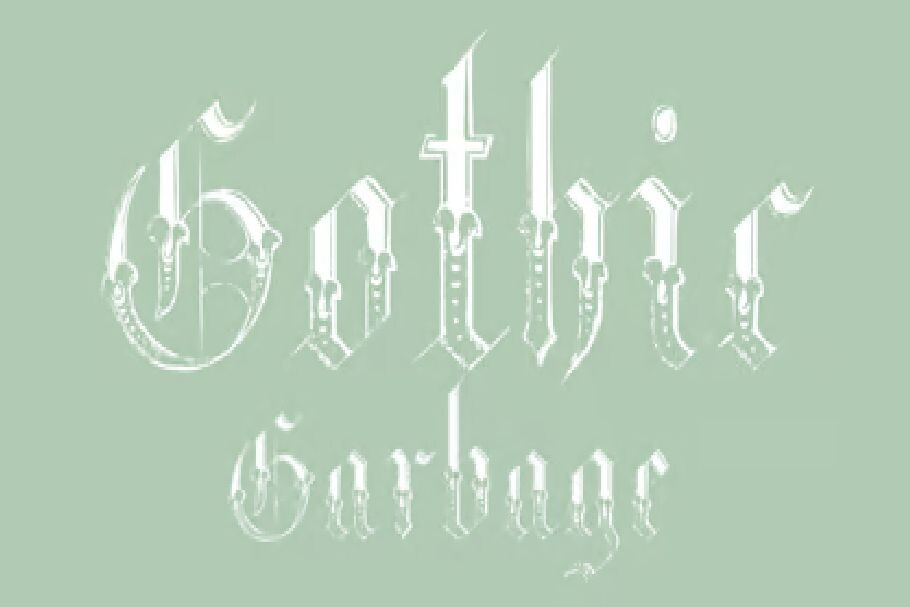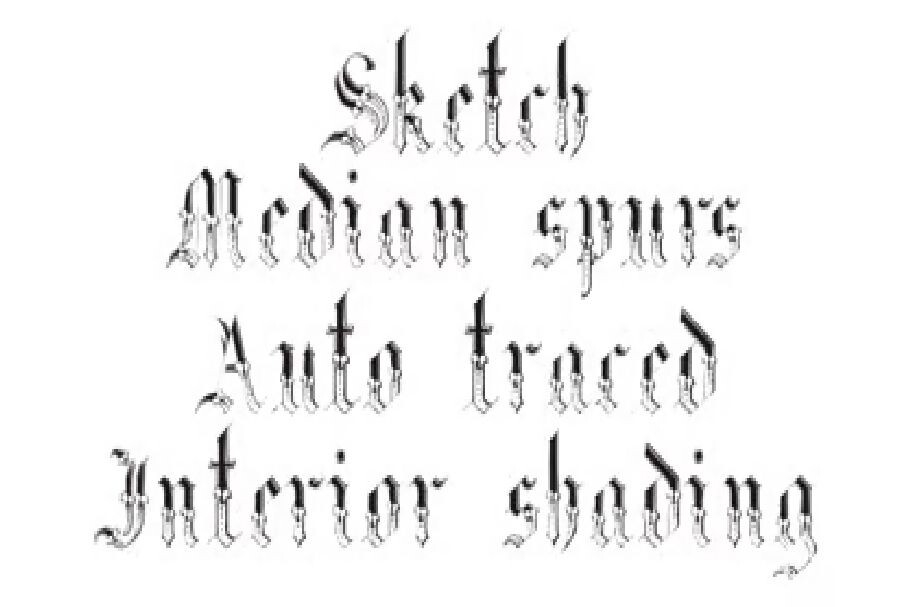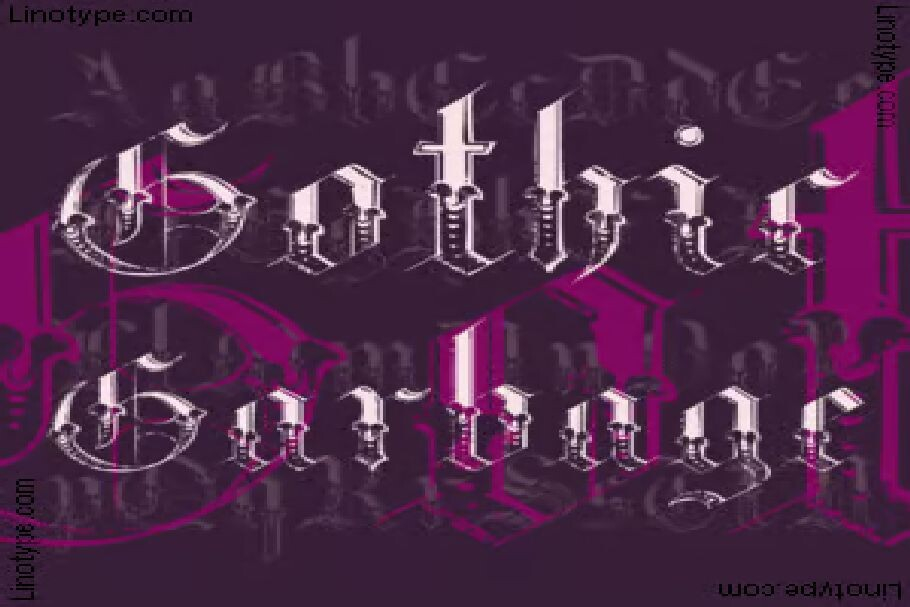
HomeBlackletter FontsGothic Garbage Font Blackletter Fonts Gothic Garbage Font FacebookXPinterestWhatsApp Gothic Garbage Font Poster 2 Gothic Garbage Font Poster 3 Gothic Garbage Font Poster 4 Gothic Garbage Font Poster 5 About Gothic Garbage Font A grunge blackletter. DOWNLOAD NOW People also explored Gnome Font Lovelya Kattrine Font Bronze Font Simplify Font Sweetygirls Font Anthea Font Ribbon Monogram Font True Love Font Pakky Standy Font 458 0 TagsGothic Garbage Font Previous articleBruce FontNext articleColide Font LEAVE A REPLY Cancel reply Comment: Please enter your comment! Name:* Please enter your name here Email:* You have entered an incorrect email address! Please enter your email address here Website: Save my name, email, and website in this browser for the next time I comment. Personal Use Free Romantic February Personal Use Free Read more about this font Geuli Personal Use Free Read more about this font Vembazax Rm Personal Use Free Read more about this font Sebastopol Personal Use Free Read more about this font BLOG Modern Sans-Serif Fonts That Brands Love in 2025 In 2025, modern sans-serif fonts remain a top choice for brands looking to project clarity, professionalism, and... Using Fonts in Digital Marketing: Tips to Strengthen Your Brand Identity How to Cut Any Font on Cricut: Convert a Font to SVG (Free) Top 7 Google Fonts Alternatives for Faster and Privacy-Friendly Web Design (2025)